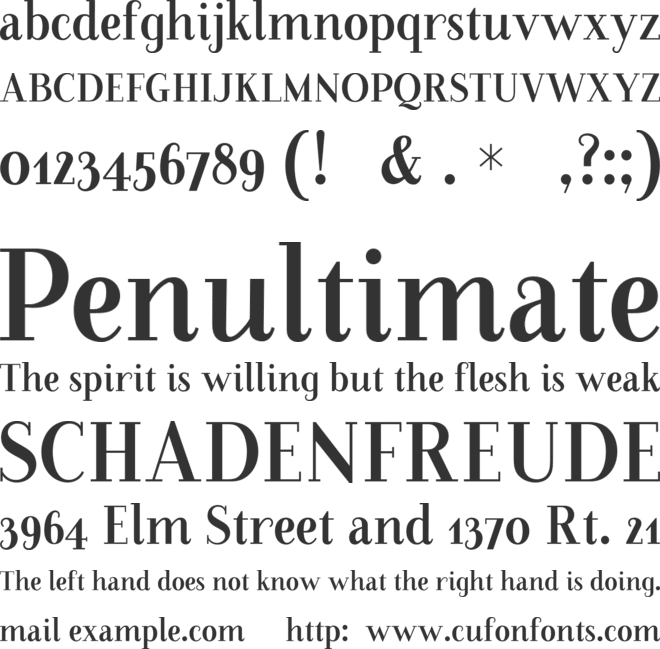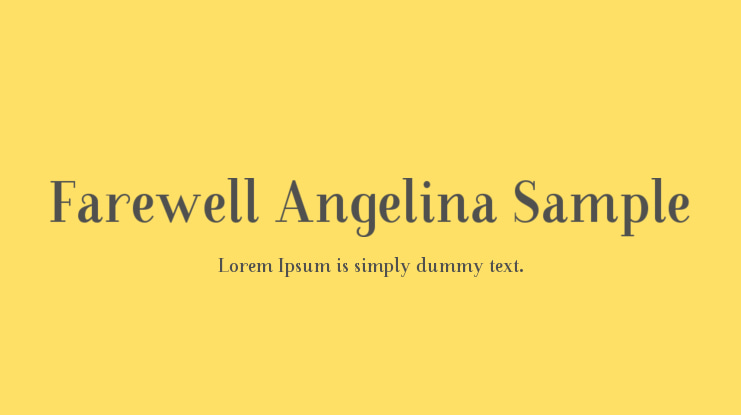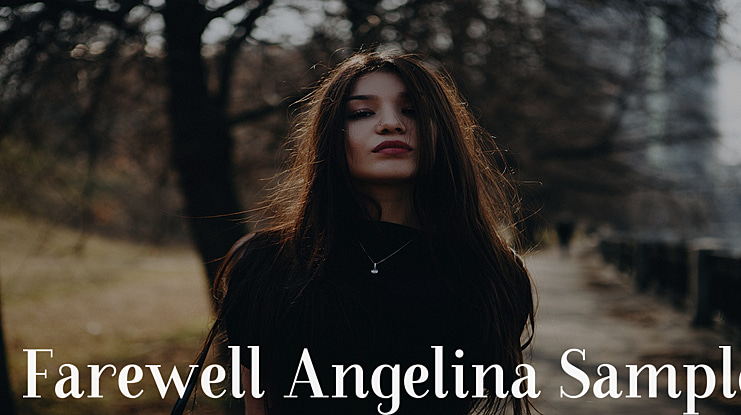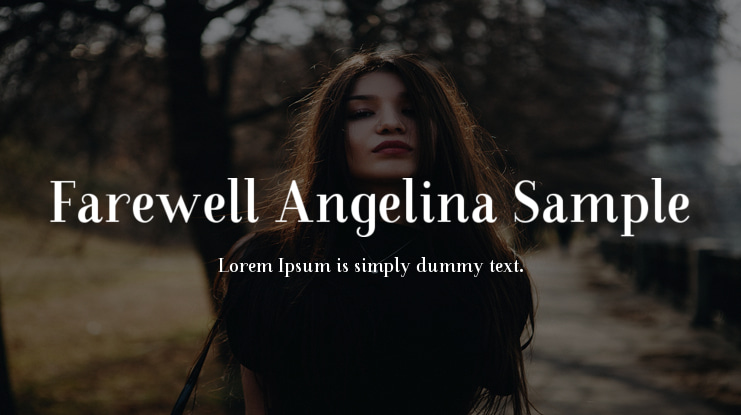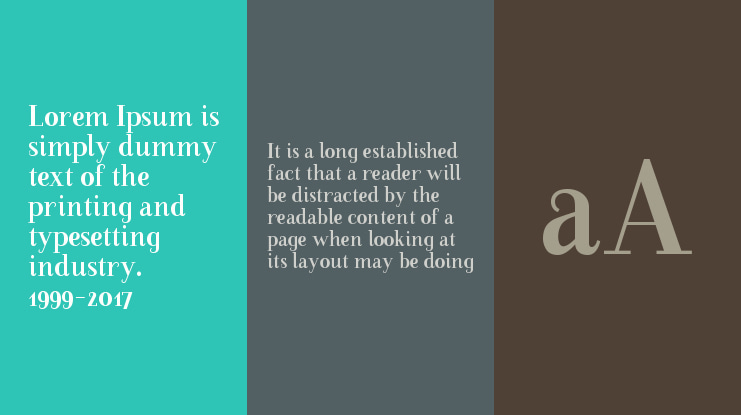
Farewell Angelina Sample Font
Farewell, Angelina is an elegant serif font family with a feminine flair. It includes:
- a display font with 3 weights: regular, bold and black, which look great at large sizes - a text font in 2 styles: regular and italic, which look great at small sizes and in longer texts
Each font includes:
- A-Z, a-z, 0-9 - accents - punctuation and symbols - ligatures -stylistic alternates
Farewell, Angelina is perfect for magazine layouts, creating logotypes, social media posts, branding and packaging.